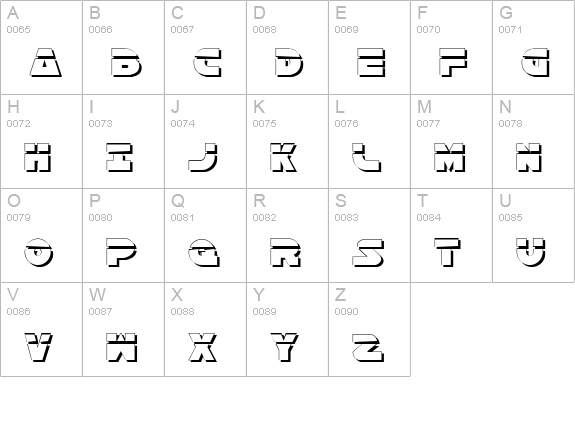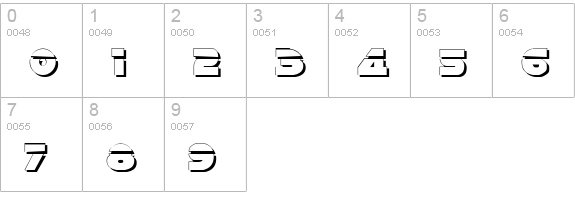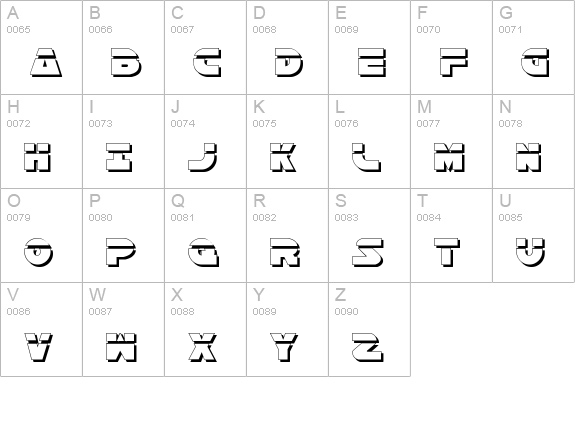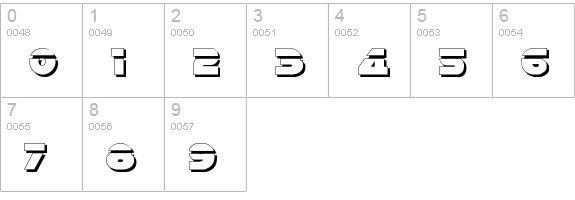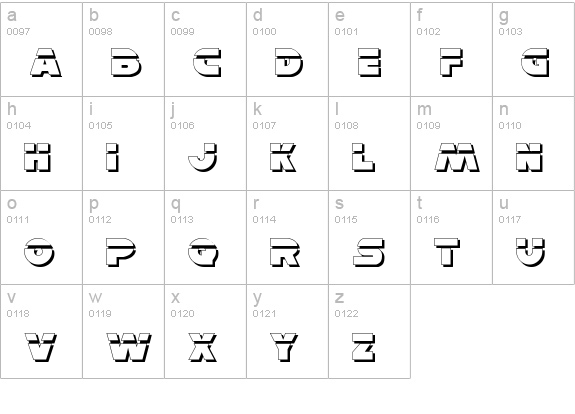
Han Solo Shadow Laser Font Details
Introducing Han Solo Shadow Laser font, an epic and bold typeface that exudes the essence of adventure and rebellion. With its distinct shadowed design, this font captures the rugged charisma of the legendary Han Solo himself, making it the perfect choice for any project that demands a touch of daring and individuality. Crafted with meticulous attention to detail, Han Solo Shadow Laser font combines sleek lines and captivating curves to create a truly mesmerizing typographic experience. Each letter is carefully laser-cut, adding depth and dimension to your text, making it jump off the page with its fierce presence. This font is not only visually striking but also incredibly versatile. Whether you're designing a movie poster, a t-shirt, a logo, or any other creative project, Han Solo Shadow Laser font will instantly elevate your design to a whole new level of awesomeness. And the best part? Han Solo Shadow Laser font is absolutely free! You heard it right – this incredible font is freely available to download exclusively at FontsMarket.com. We believe that creativity should never be limited by budget constraints, and that's why we're offering this font as a gift to all the rebels and adventurers out there. So, what are you waiting for? Unleash your creativity and let Han Solo Shadow Laser font take your designs to a galaxy far, far away. Download it now at FontsMarket.com and embark on a typographic journey like no other. May the force be with you!